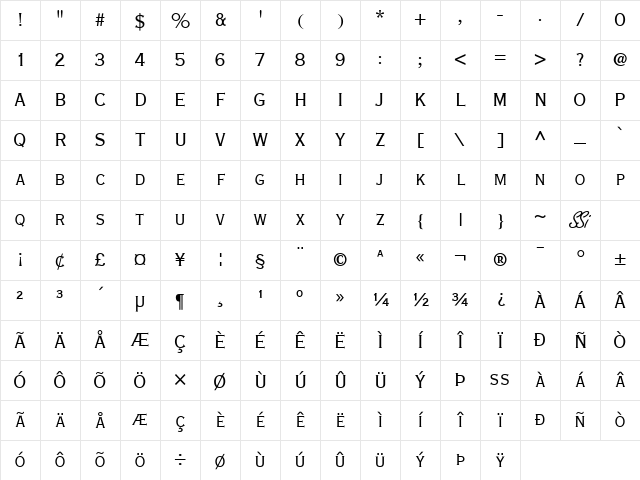
Design Context for Copperplate Extra Condensed SSi
Copperplate Extra Condensed SSi is a composed and adaptable typeface that performs quietly and consistently across a wide range of design contexts. Its narrow stance lets it pack a punch even in space-constrained designs.